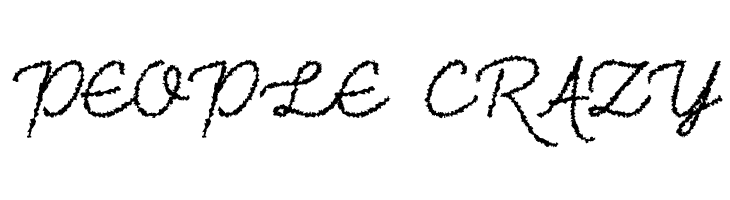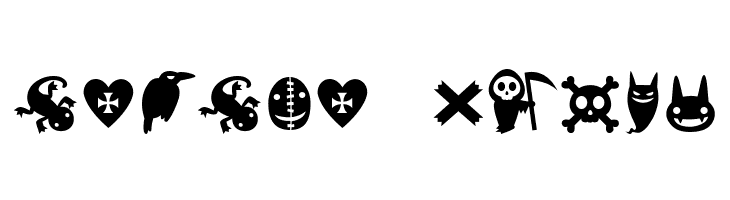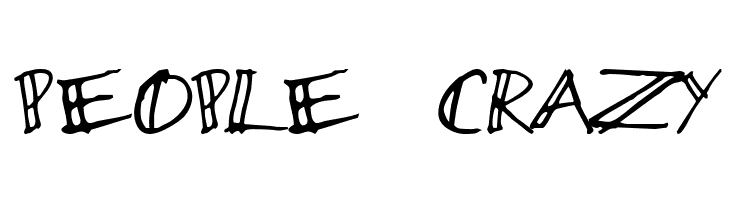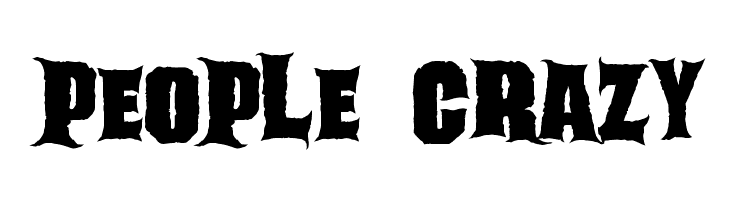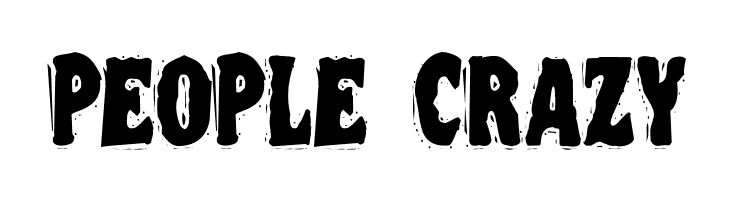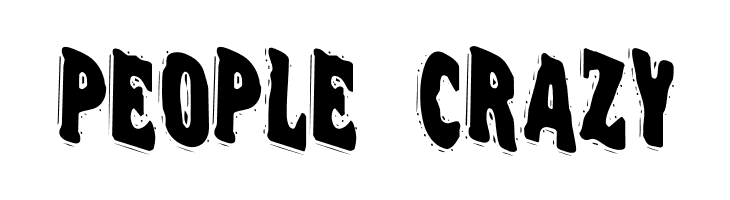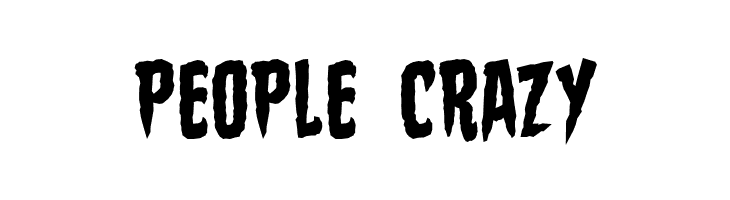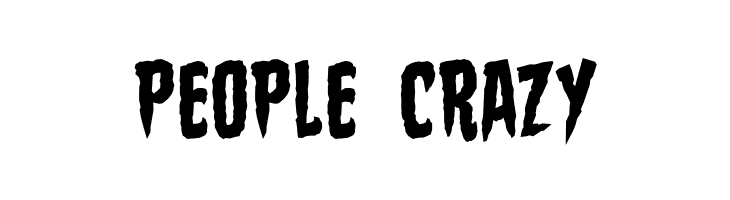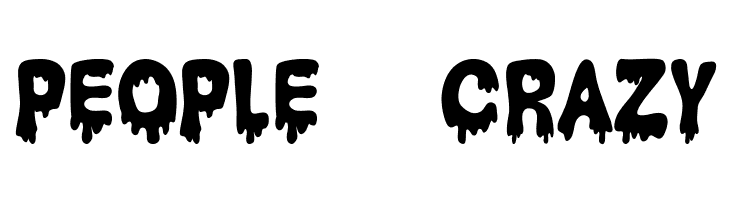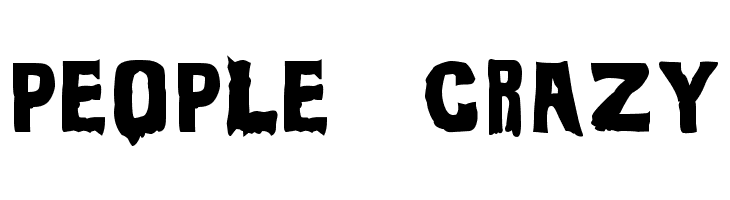
A spooky, web-patterned decorative font ideal for Halloween themes.
A bold, italic font with a dripping, candle-like effect.
A bold, decorative font with a gothic, monstrous style.
A bold, gothic-inspired font with sharp edges and flowing curves.
A bone-themed decorative font perfect for spooky designs.
A dramatic, gothic-style font with sharp serifs and angular design.
A bold, playful font with a hand-drawn, spooky aesthetic.
A spooky, whimsical font with jagged edges, ideal for Halloween themes.
A bold, dripping font with a spooky Halloween theme.
A spooky, jagged font perfect for Halloween themes.
A whimsical, Halloween-themed font with scarecrow silhouettes and hand-drawn style.
A spooky, decorative font with elongated, twisted forms and gothic swirls.
A bold, jagged font with a haunting, hand-drawn style.
A textured, script-style font with a mysterious, handwritten appearance.
A playful and spooky collection of Halloween-themed icons in bold silhouettes.
A playful, spooky handwritten font ideal for Halloween themes.
A bold, jagged font with a spooky, horror-themed design.
A bold, playful font with a spooky, dripping effect ideal for horror themes.
A bold, distressed font with a spooky, hand-drawn style.
A bold, jagged font with a horror-inspired, hand-drawn style.
A bold, dripping font with a spooky, playful style.
A bold, horror-themed font with jagged, irregular characters.
A bold, bone-themed font ideal for spooky or Halloween projects.
A playful, bold font with eye-like designs on each character.
A bold, dripping font with a spooky, horror-themed design.
A dripping, horror-themed font with a liquid-like appearance.
A spooky, dripping font perfect for horror themes.
A bold, distressed font with a grungy, horror-themed aesthetic.
A bold, playful font with a whimsical and slightly gothic style.
A playful, spooky font with quirky, irregular letterforms and Halloween motifs.